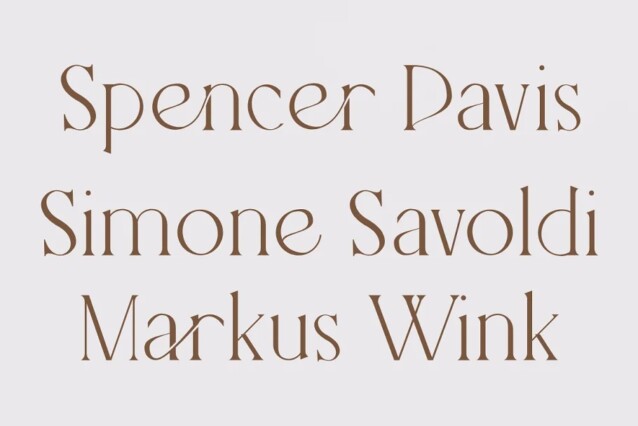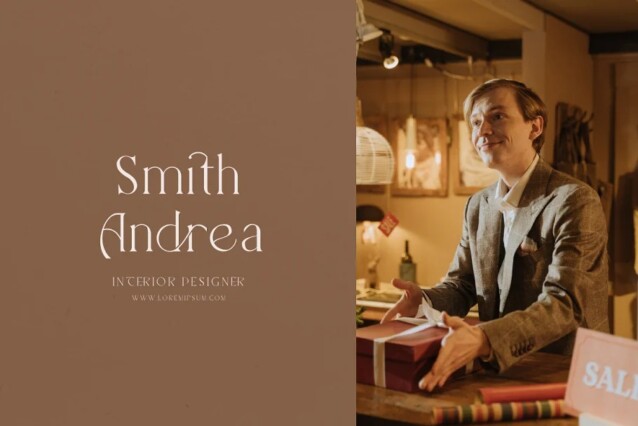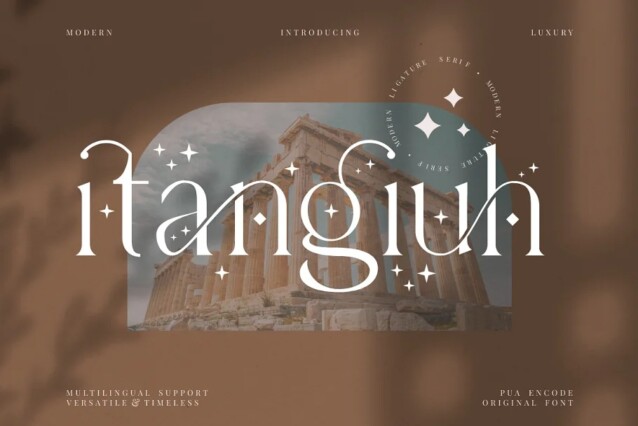
Itangiuh Font
Itangiuh Font is a cool and stylish serif typeface, featuring its own unique style and modern look. Suitable for any projects such as: logos, branding projects, homeware designs, product packaging, mugs, quotes, posters, shopping bags, t-shirts, book covers, name card, invitation cards, greeting cards, label, photography, watermark, special events, and all your other lovely projects that need a beautiful serif taste.